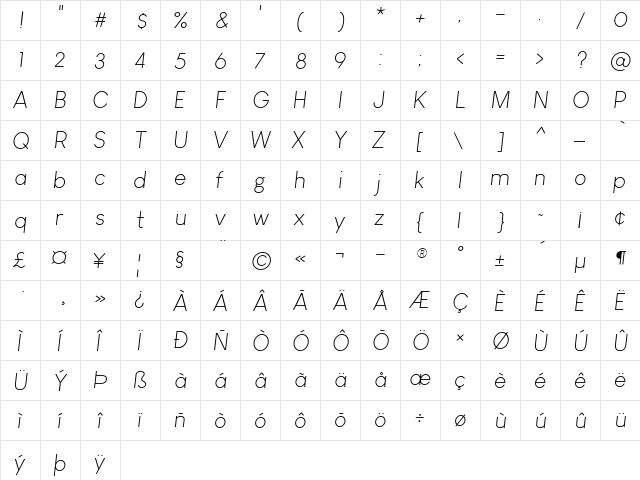
Louis George Cafe Light Italic
| Designer | Yining Chen |
Design Context for Louis George Cafe Light Typeface
Louis George Cafe Light is a composed and adaptable typeface that performs quietly and consistently across a wide range of design contexts. The slanted form adds forward momentum and visual energy. Its slender proportions lend an understated elegance to any composition.
Pro Tip: Use Louis George Cafe Light for emphasis, pull quotes, and subheadings where its slanted energy can add rhythm to the layout.